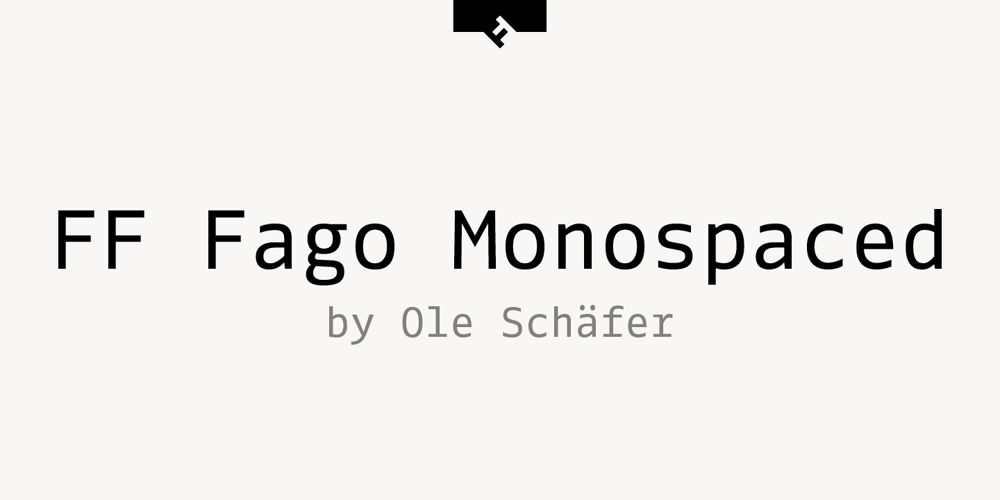
FF Fago Monospaced Font Family was designed by Ole Schäfer and published by FontFont. FF Fago Monospaced contains 3 styles and family package options. FF FagoThanks to his many years of involvement in major corporate type projects, Ole Schäfer had the necessary resources from which to construct his FF Fago™. The result is an extended family that provides comprehensive typographic support and whose qualities come to the fore in all relevant contexts ? from print to office through internet and wayfinding systems. FF FagoThe sizable x-height together with the generous and open design of the characters ensure that the sans serif Fago remains clearly legible even in small point sizes or in potentially difficult situations, such as on wayfinding systems. A subtle contrast in line weight and letter forms that are reminiscent of those of an antiqua typeface provide the font with a restrained yet friendly and lively tone. Available in five weights, each with three different kerning widths and matching genuine italic variants, FF Fago is equipped for practically every situation. There are also small caps, oldstyle and lining figures, a selection of ligatures and geometric symbols. The range of potential applications of this universal font is almost inexhaustible ? it can be used in packaging design, on signs, posters and even for setting longer text sections. Fago is the ideal partner for those working on major corporate projects! FF Fago Correspondence Sans und Correspondence SerifThe Correspondence versions of Fago have been optimized for use in the business environment and in office communication. The carefully modified characters have a particularly robust feel, so that the clear, easily differentiated glyphs allow for straightforward communication even on screen. With these aims in mind, Schäfer has not only adjusted the x-height, but has provided certain letters in the sans variant ? such as the lowercase “i”, the “r” and the uppercase “I” ? with serifs. Correspondence Serif, on the other hand, has been conceived as a slab serif throughout and in appearance has the look of the letters produced by the old office typewriting machines. An individual note has been added by providing a few unusual serif forms, as for example in the case of the “m”, the “v” and the “y”. Both Correspondence Sans and Serif are available in two weights with complementary italic versions and thus are ideally suited for use with standard office programs. This is all rounded off with a selection of office symbols. FF Fago MonospacedThe use of a few typographic tricks is necessary to ensure that the letters of the alphabet appear to have the same width. Narrow letters such as “r” and “i” have been made to seem more expansive by using prominent serifs while the broader letters ? a good example is the “m” ? have the forms seen in a condensed font. And it is thanks to this design strategy that Fago Monospaced has the character of old typewriter text. What was once unavoidable because of the technology of the time is now a welcome alternative that can be used for the purposes of emphasis. As an additional supplement to the Fago superfamily, Fago Monospaced can be used, for example, to set short notes or draw attention to special text passages. There are three weights, in their original form without italic variants or small caps, but offering an alternative, technical form of the “0” with a crossbar.